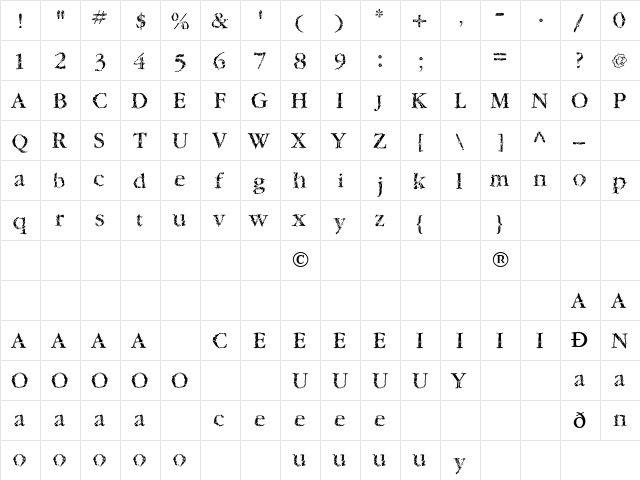
TwyliteZone Book
Design Context for TwyliteZone Typeface
TwyliteZone takes a measured approach to typography — its balanced proportions and neutral character make it a reliable workhorse for both digital and print work.